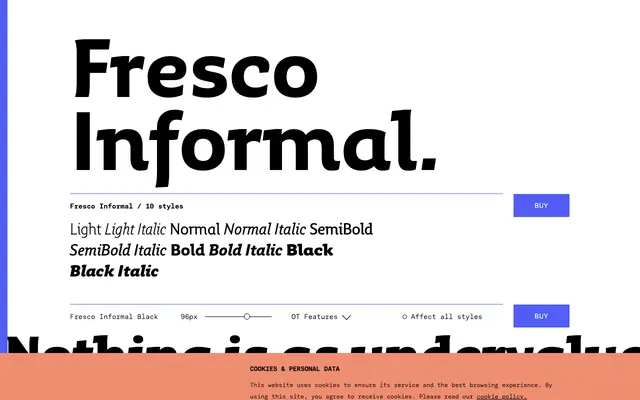
Fresco Informal
The informal branch of the Fresco superfamily, offering five weights with italics and a character suited to everyday editorial and communications work.
Part of a wider superfamily that includes Fresco, Fresco Sans, Fresco Plus Sans and Fresco Script, the Informal variant shares the same x-height and capital proportions as its siblings, allowing mixing across the family. Its relaxed character makes it less suited to formal documents but handles well at small text sizes, and becomes particularly expressive at display scale. Ten styles span Light to Black with matching italics throughout, and both lining and oldstyle figures are included.
Fresco Informal is a humanist serif with a relaxed, informal character that sits comfortably between text and display use. Its warmth and organic quality align it with the humanist serif tradition rather than transitional or old-style models.